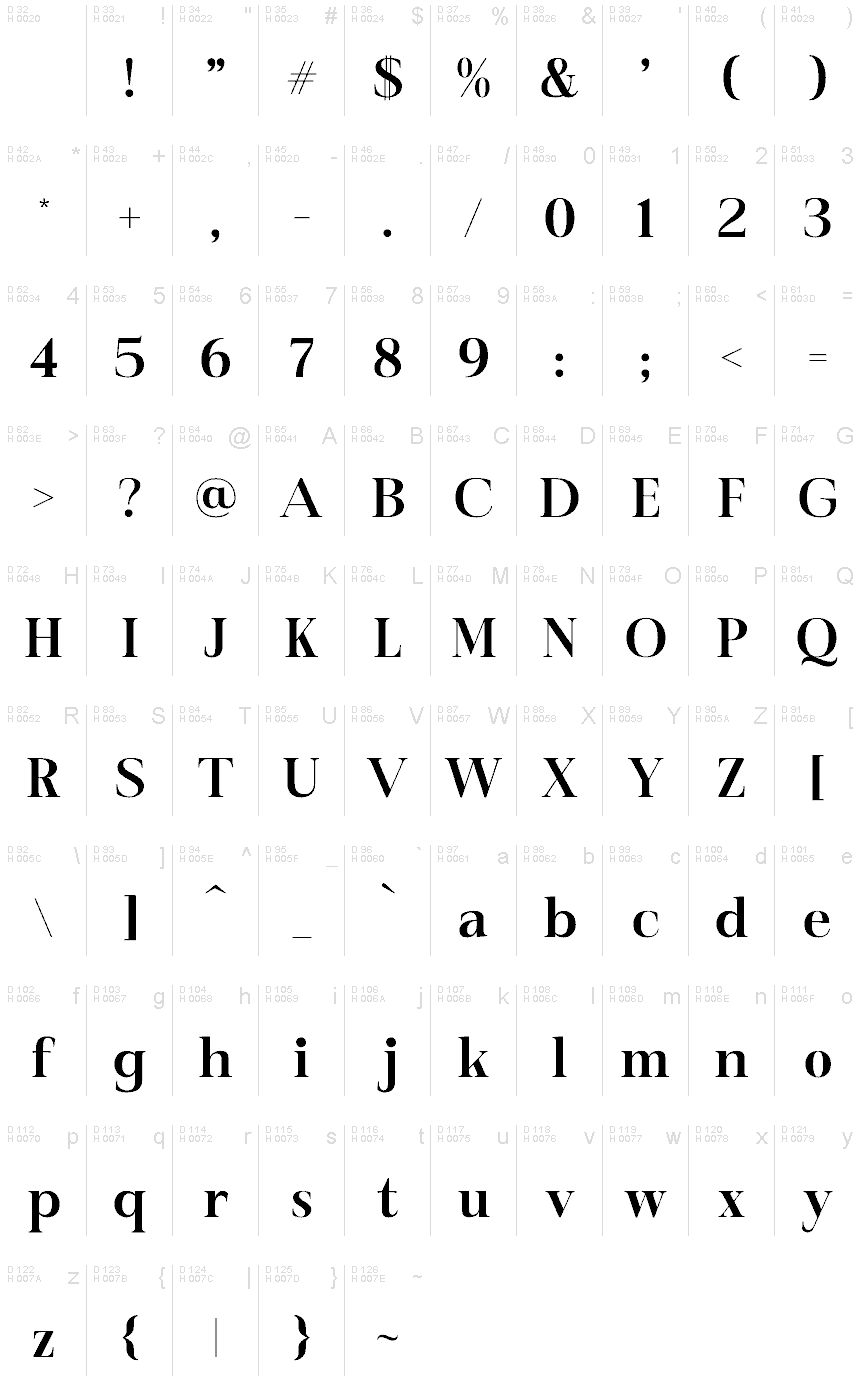
Trevino
Trevino font is a serif typeface by Storytype Studio with an elegant and classic style. Sophisticated and refined, the formal font features extraordinary serifs which manifest mostly in its capital characters. The uncommon shapes designed by the original artist give a vintage look that is both classy and powerful.
Add value to your branding projects, printed designs (magazines, books), as well as digital products like mobile apps and websites’ user interface. Give fresh ideas for packaging visuals when it comes to labels used on beverages or food products. Finally, use this free serif font for logotypes focusing on uniquely shaped letter initials similar to the available sample presented above.